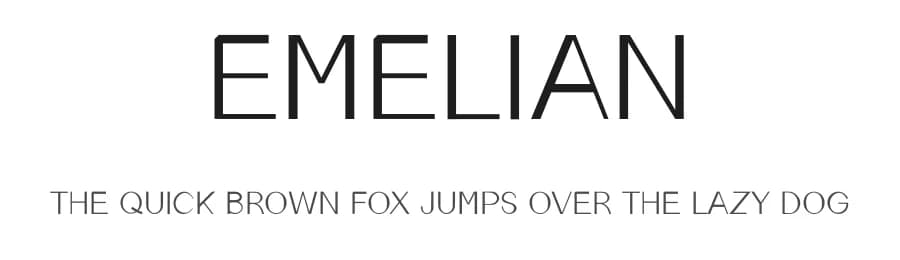
About Emelian Font
Emelian is a sans-serif font designed by nendi emelia. It includes 33 glyphs, a regular weight, OTF (CFF) format, and 168 languages. Emelian is free to download; check the license details on this page before commercial use. Sans-serif fonts like Emelian work best for clean body text, user interfaces, branding, and modern layouts.
Emelian Font is a versatile sans-serif font that works for both headings and body text. Pair it with a contrasting serif or slab serif font to add visual interest and a clear distinction between titles and body copy.
Emelian Font is a sans serif typeface by nendi emelia, ideal for logos, invitations, branding, and creative projects.